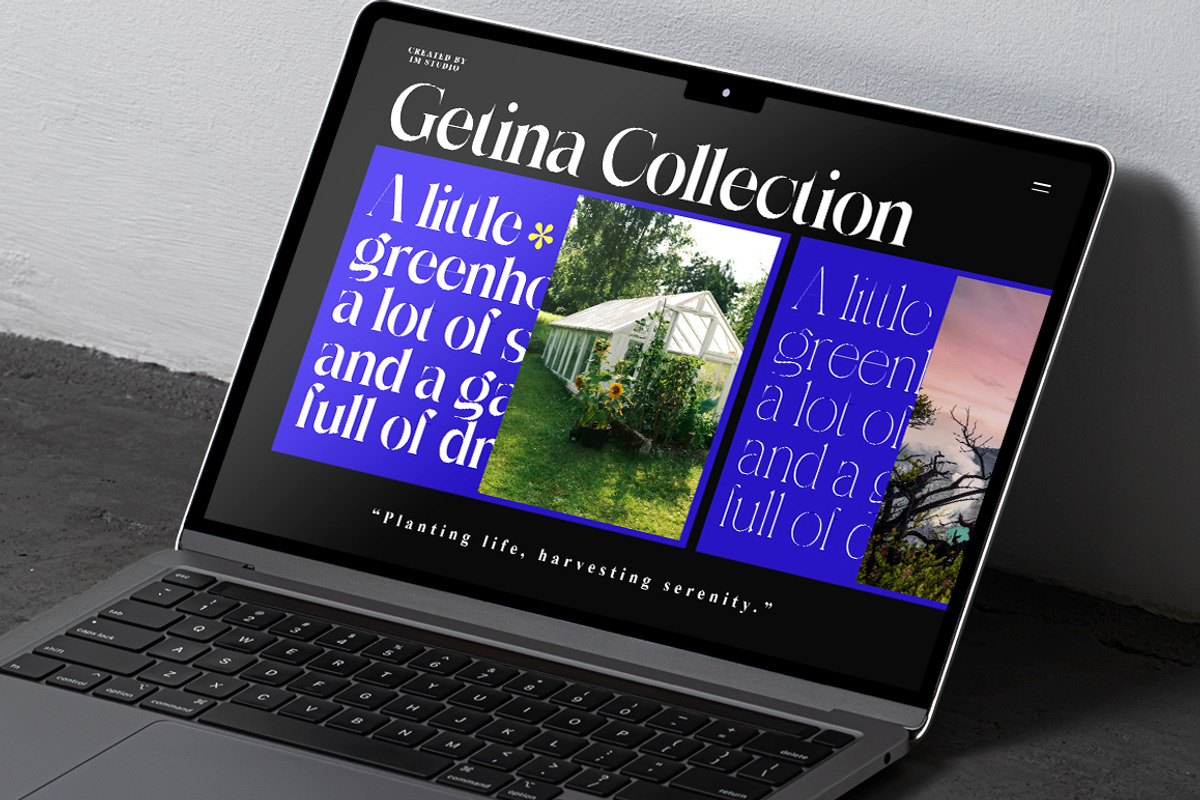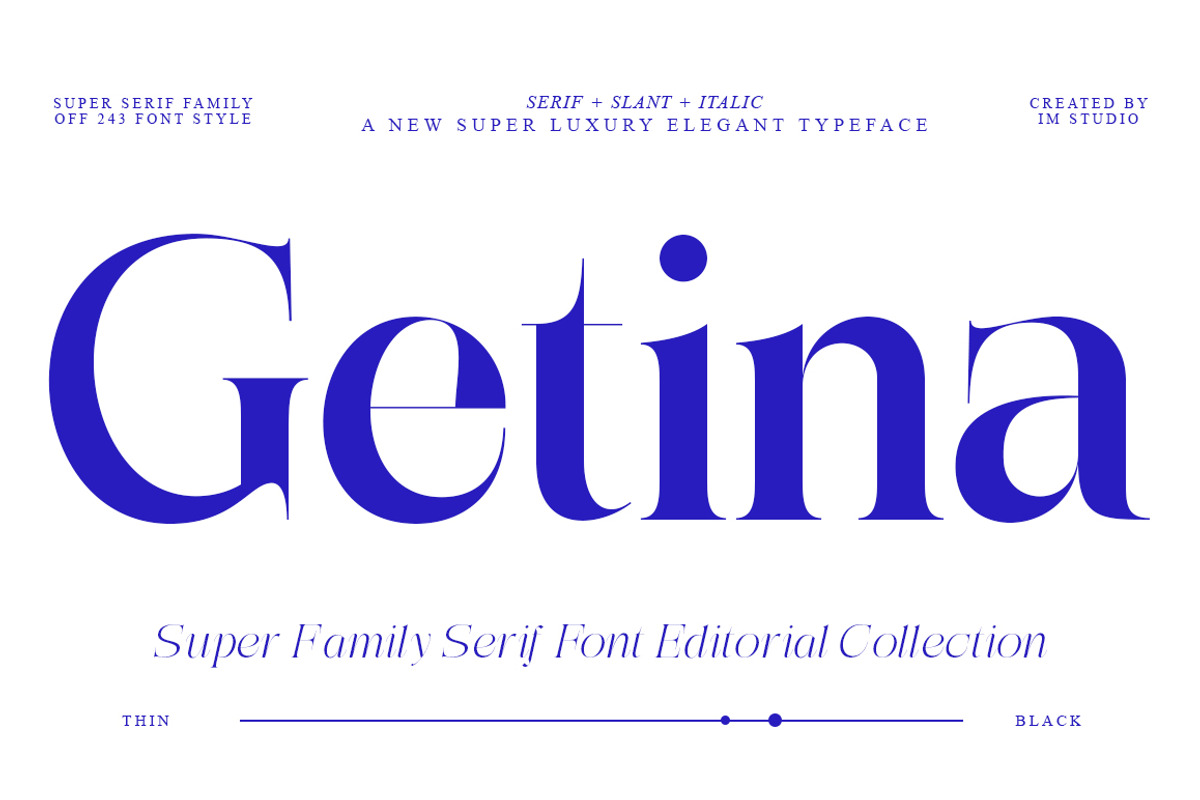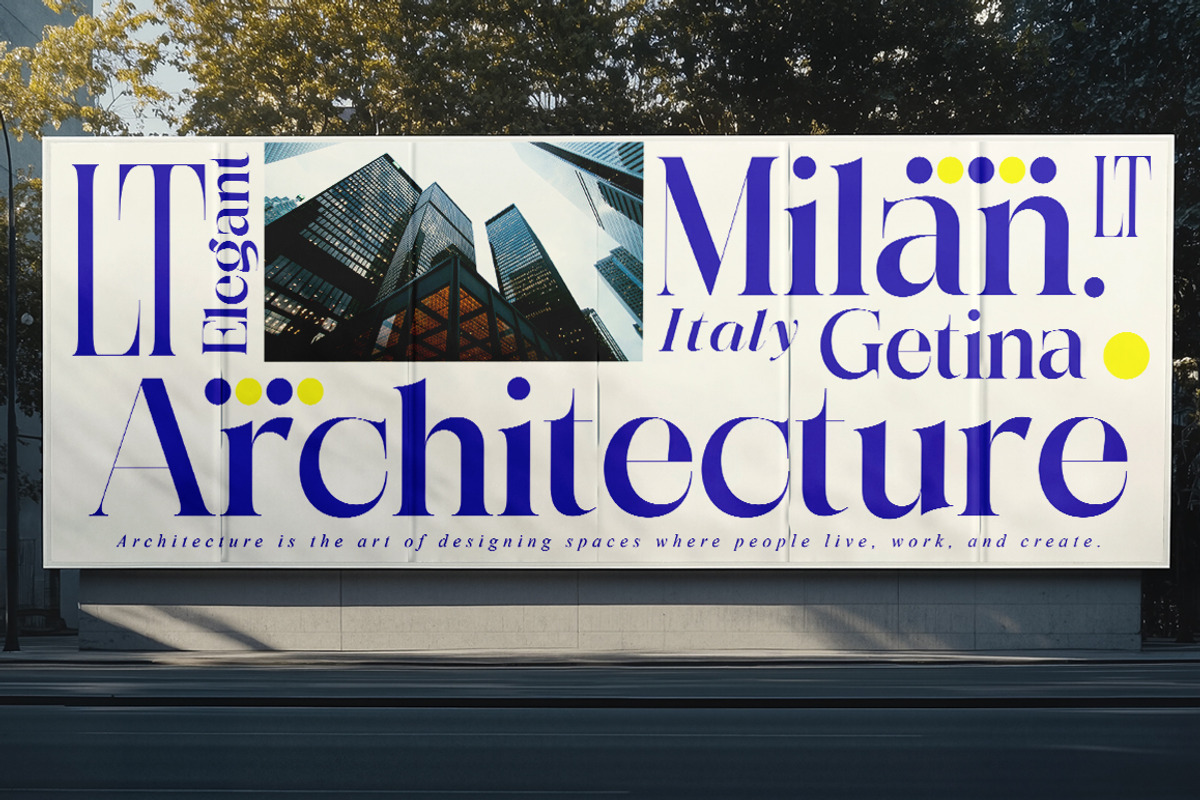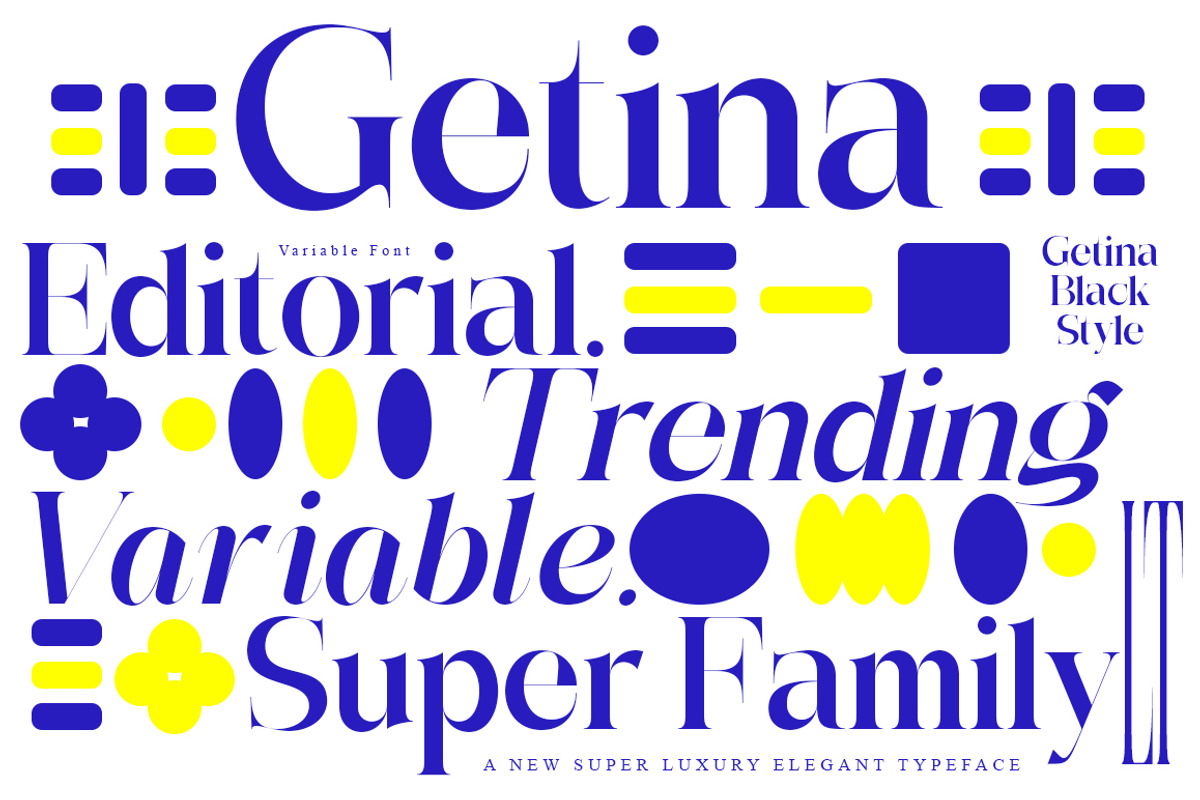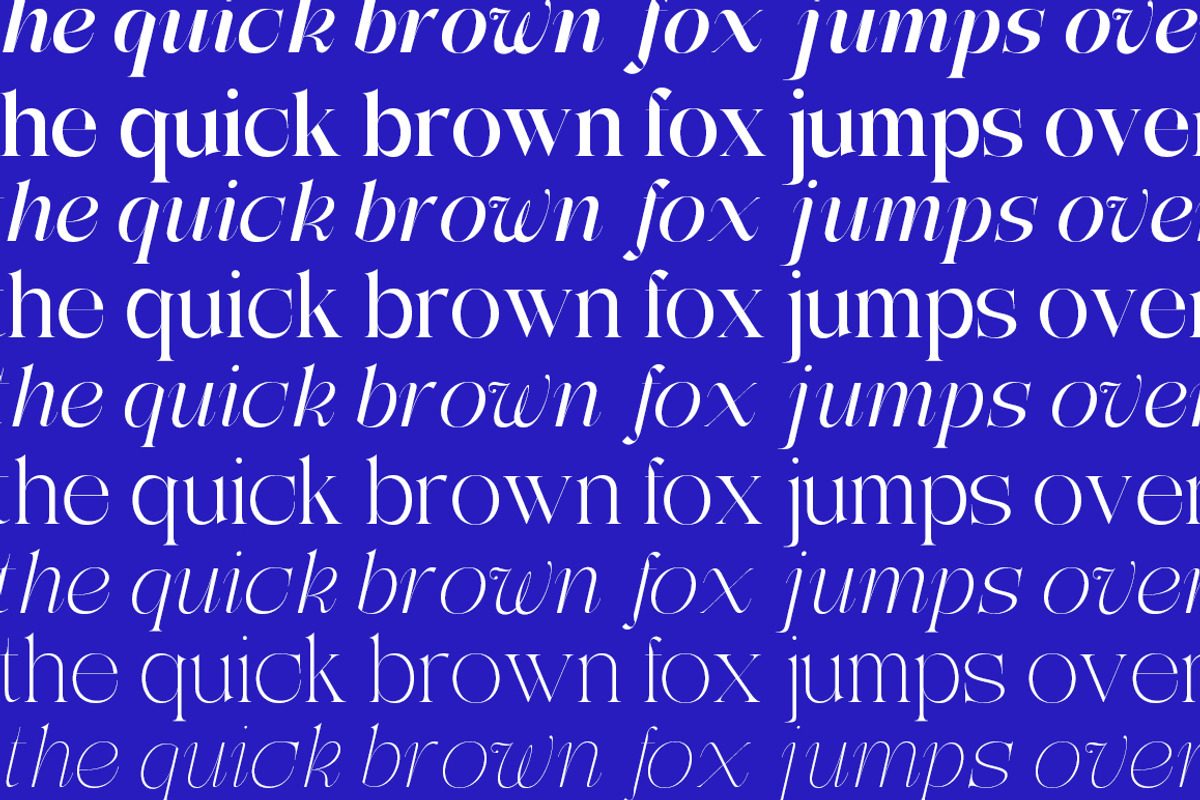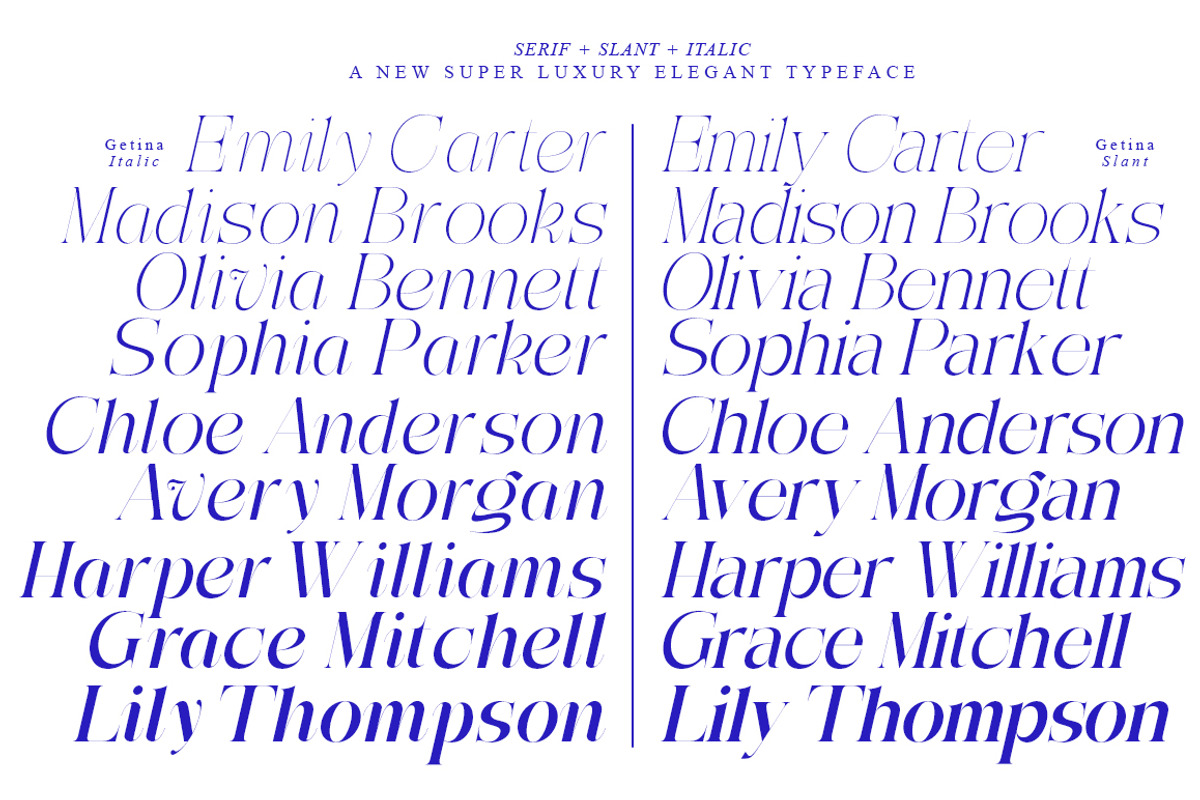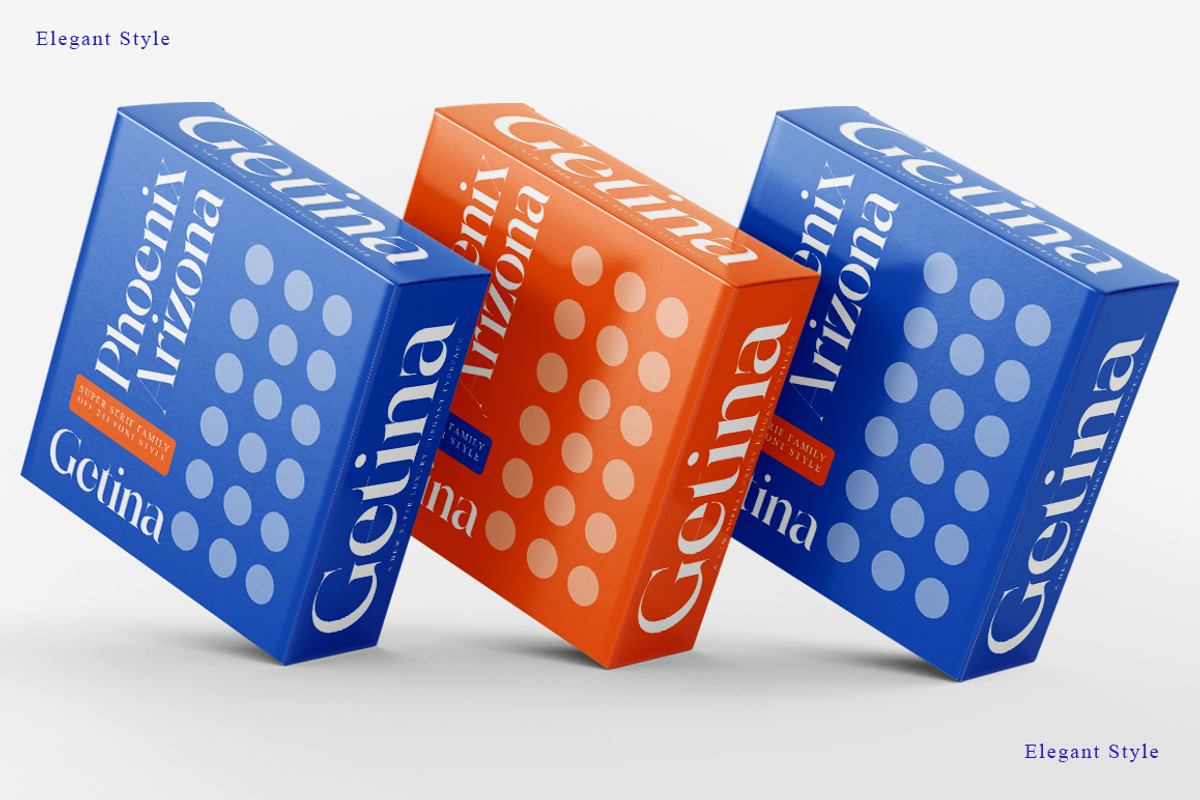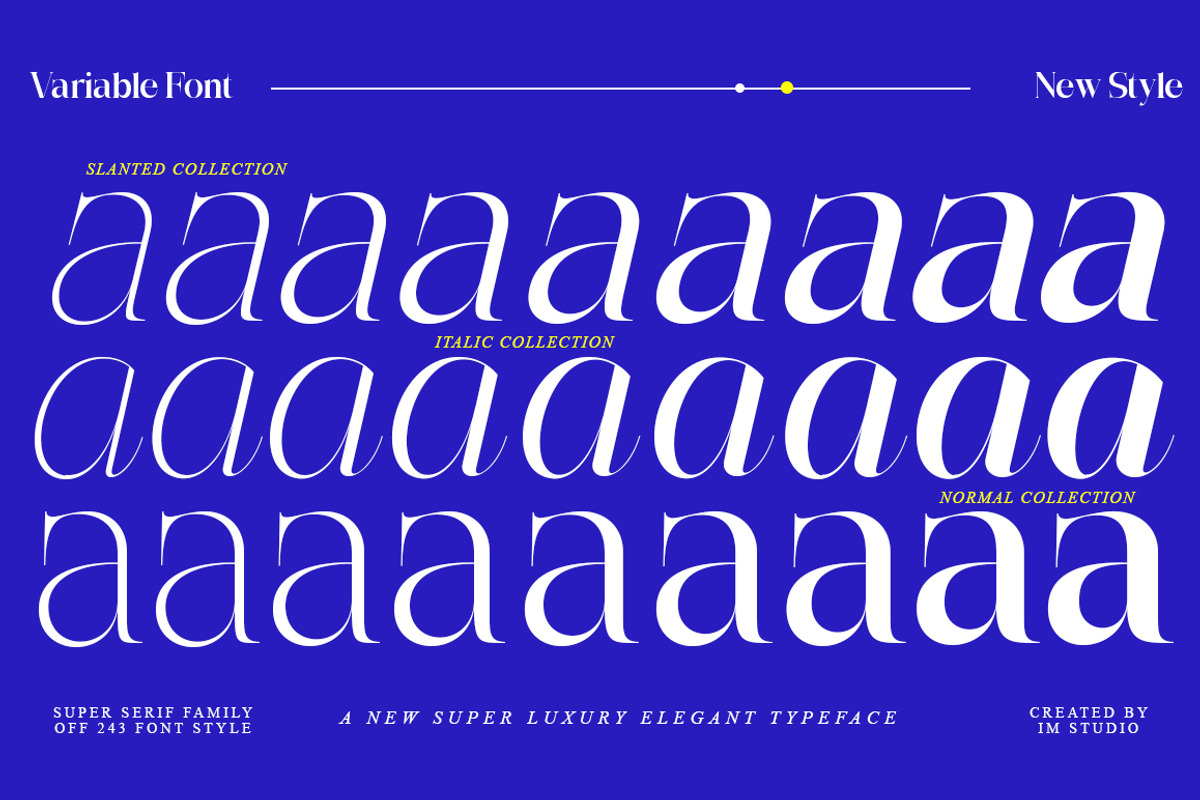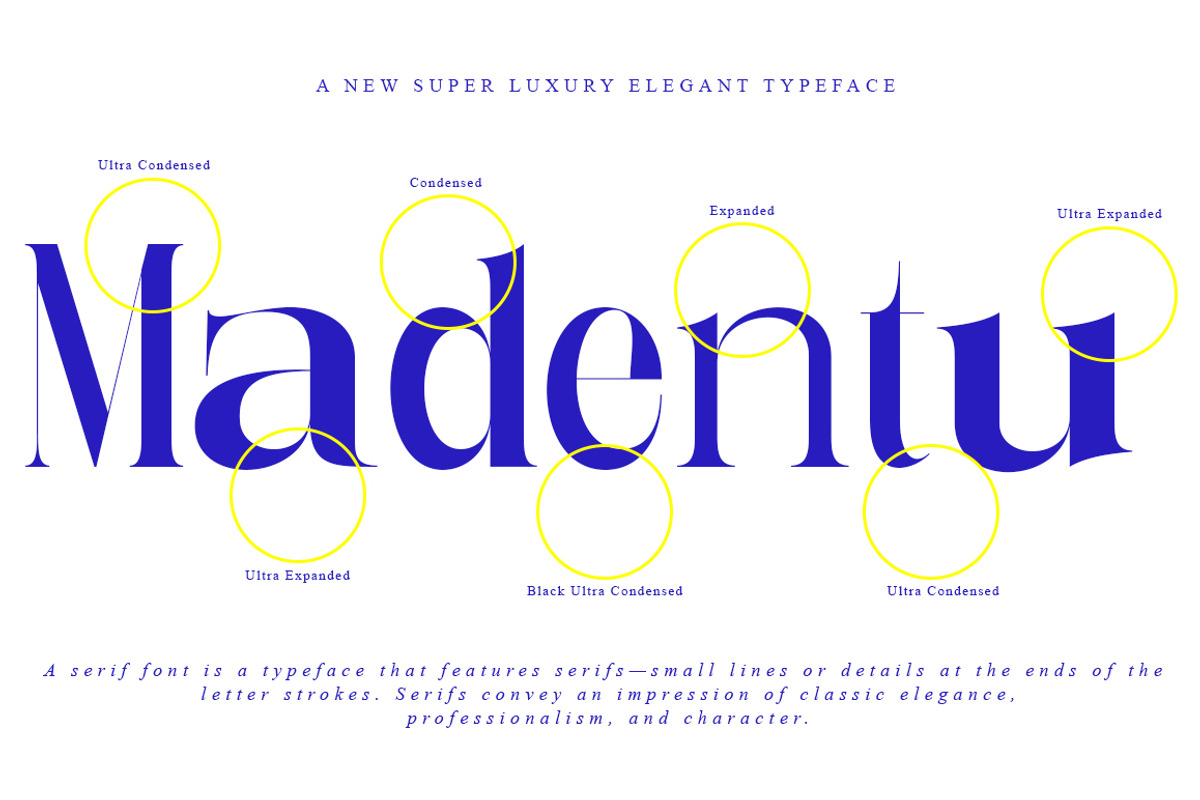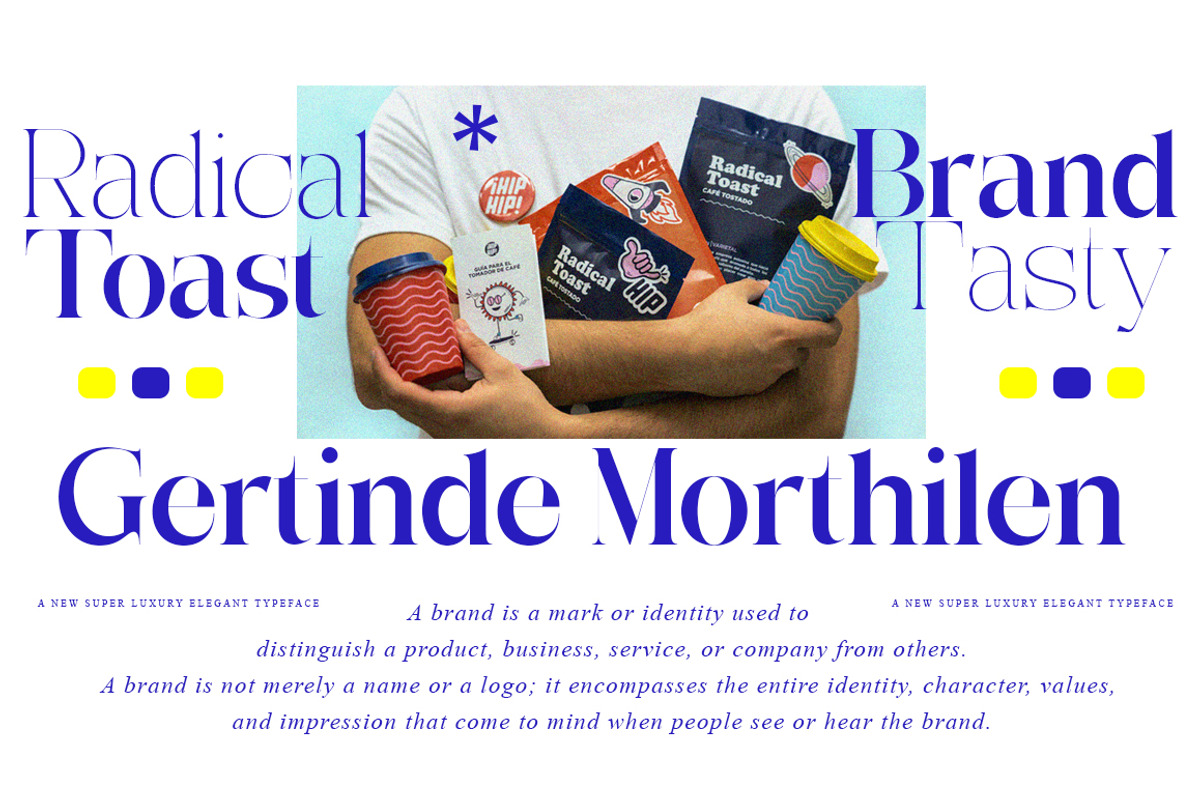
Getina Serif Super Family 243 Fonts
Getina Serif Super Family — 243 Font Styles
Contemporary Elegance. Editorial Character. Endless Versatility.
Meet Getina Serif, a sophisticated contemporary serif superfamily designed for modern brands, editorial layouts, and expressive visual identities.
With 243 professionally crafted font styles, Getina Serif offers an extensive range of weights, widths, and proportions, giving you complete creative freedom—from refined and elegant typography to bold, distinctive display compositions.
Its subtle retro influence adds personality and warmth while maintaining a clean, contemporary feel. Whether you're creating a luxury brand identity, fashion editorial, magazine layout, packaging, advertising campaign, or striking social media design, Getina Serif adapts effortlessly to your creative direction.
243 Font Styles
Multiple Weights & Widths
Regular & Italic Styles
Contemporary Serif Design
Elegant Editorial Character
Subtle Retro Influence
OpenType Features & Ligatures
Perfect for Branding, Editorial, Fashion, Packaging, Advertising & Display
Getina Serif is built for designers who want typography with character, flexibility, and a premium modern aesthetic.